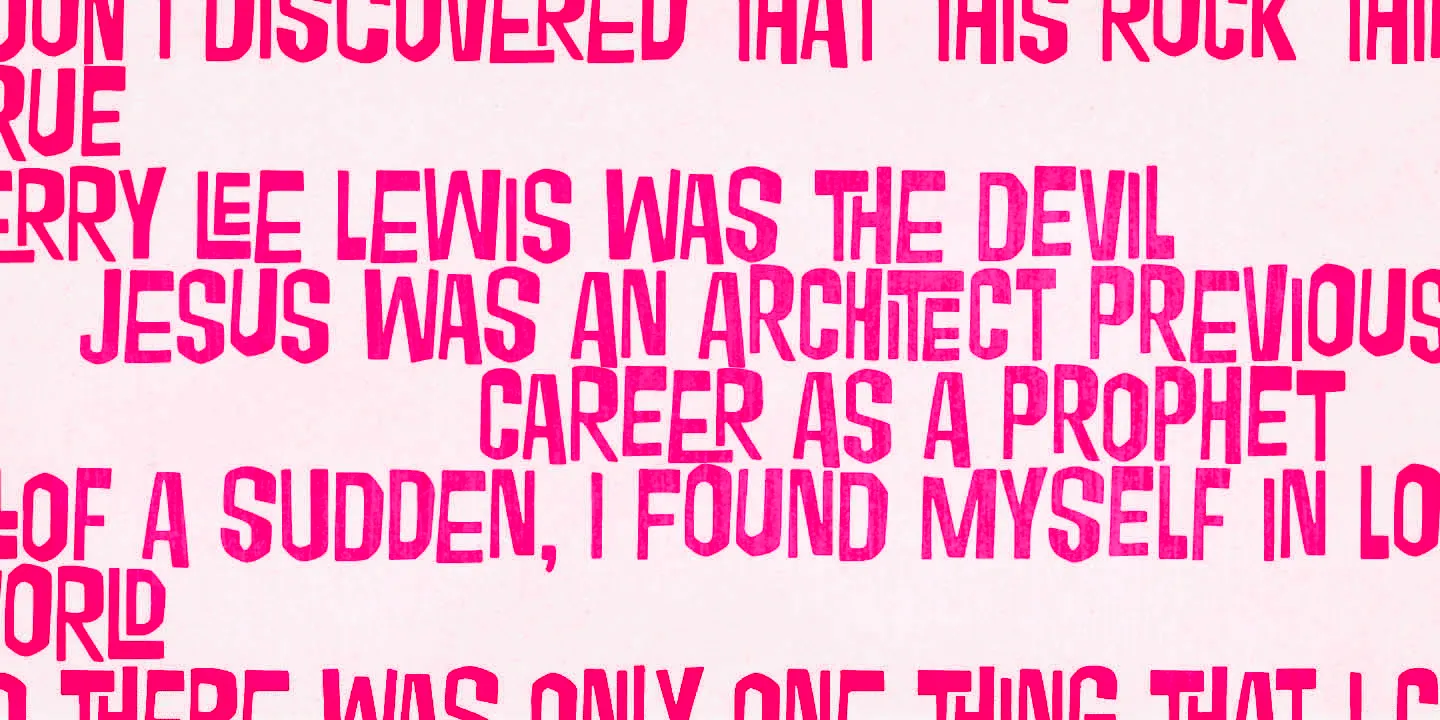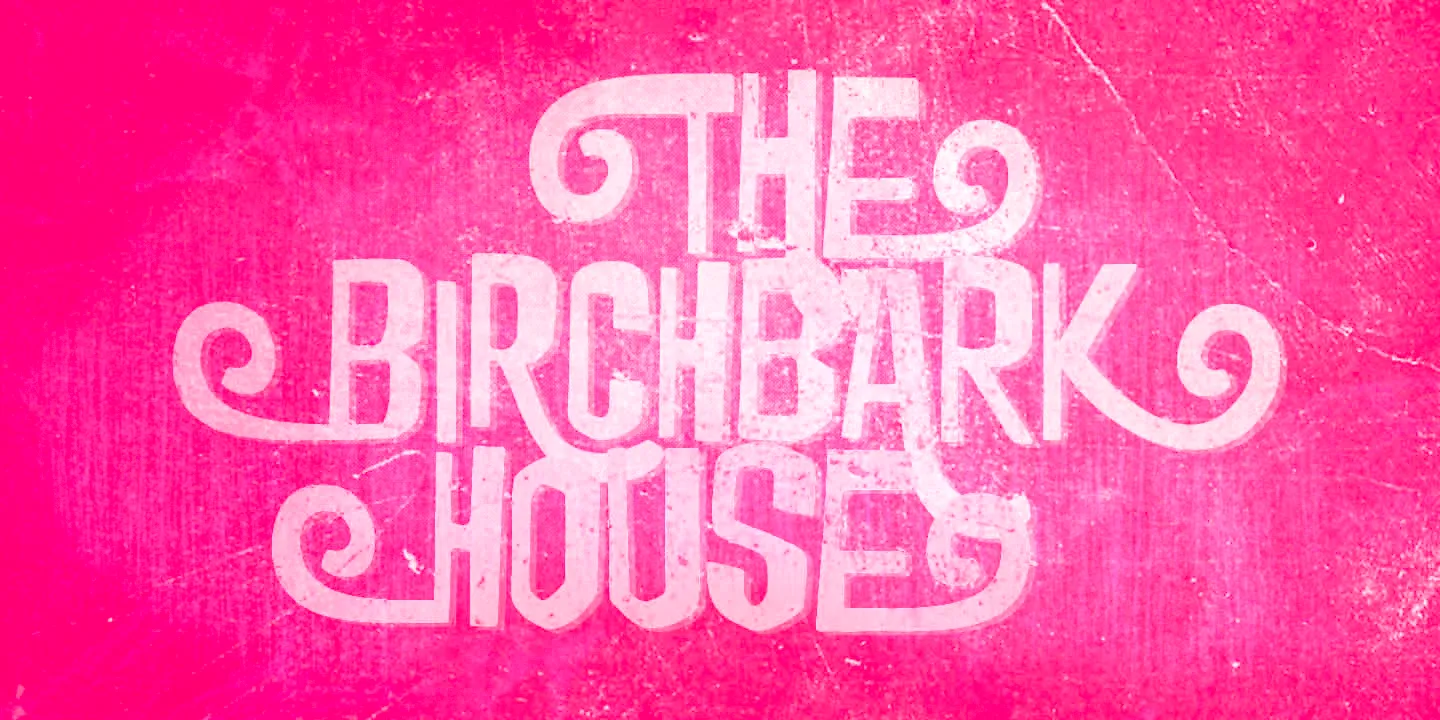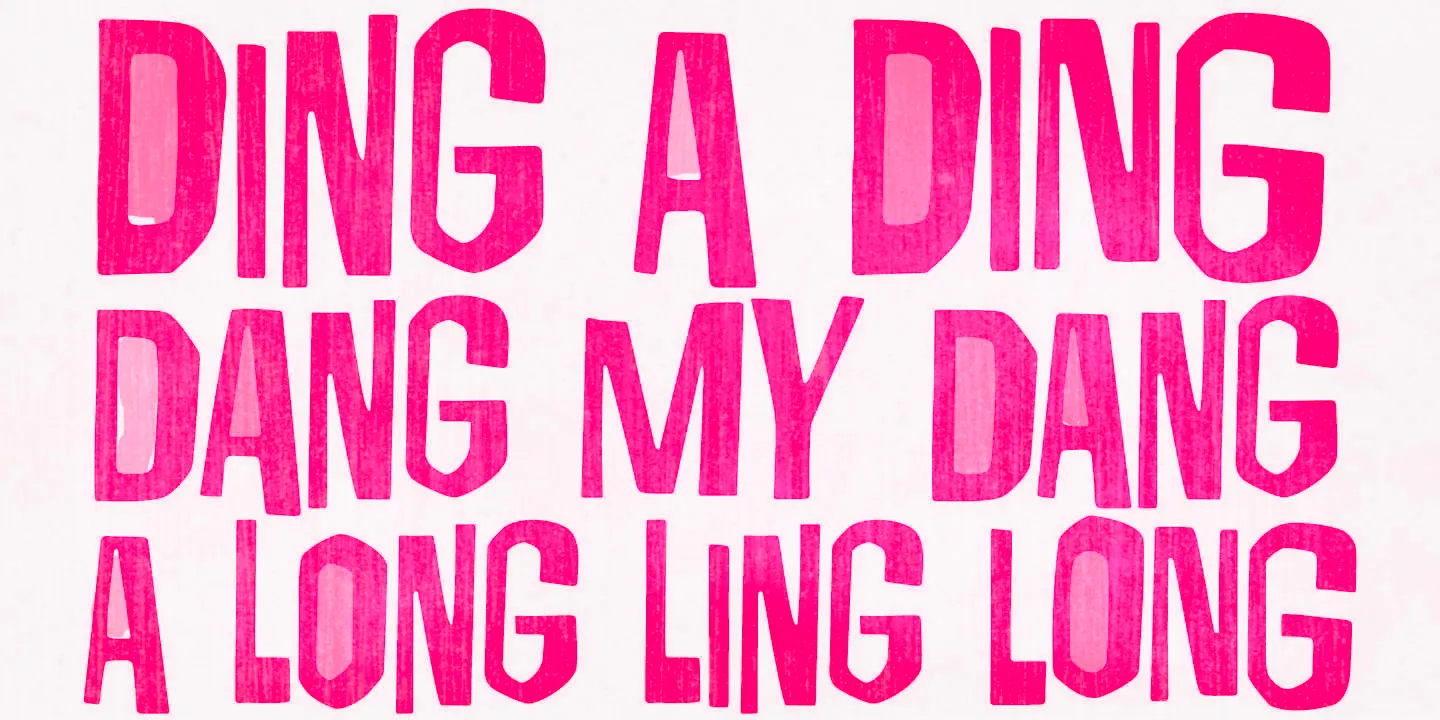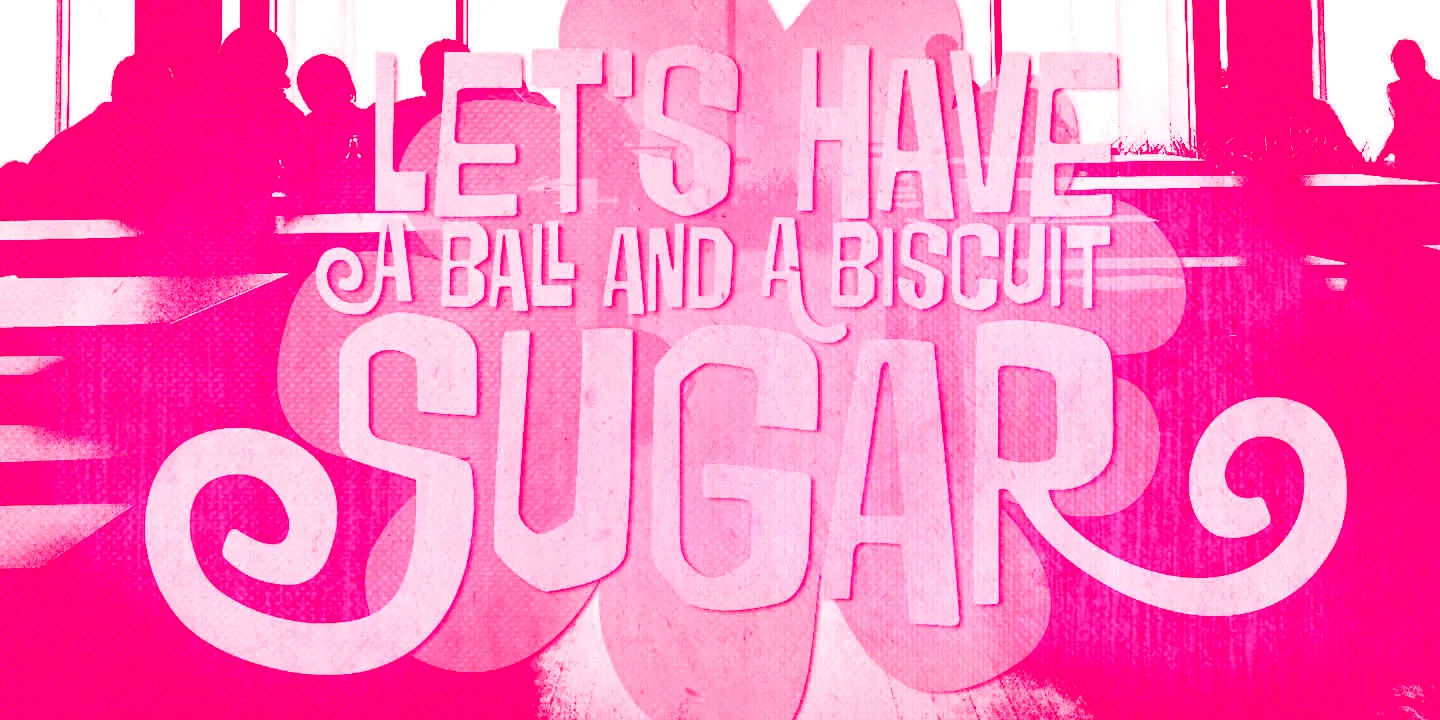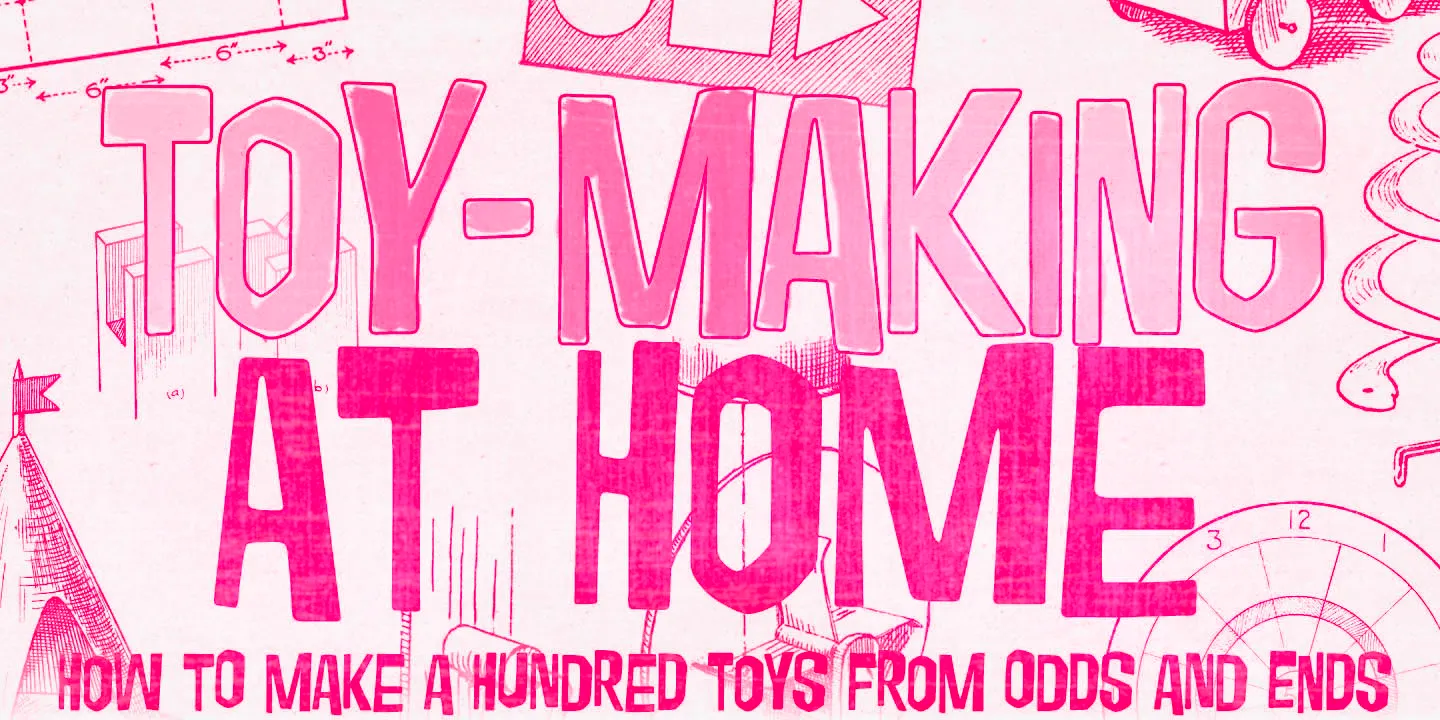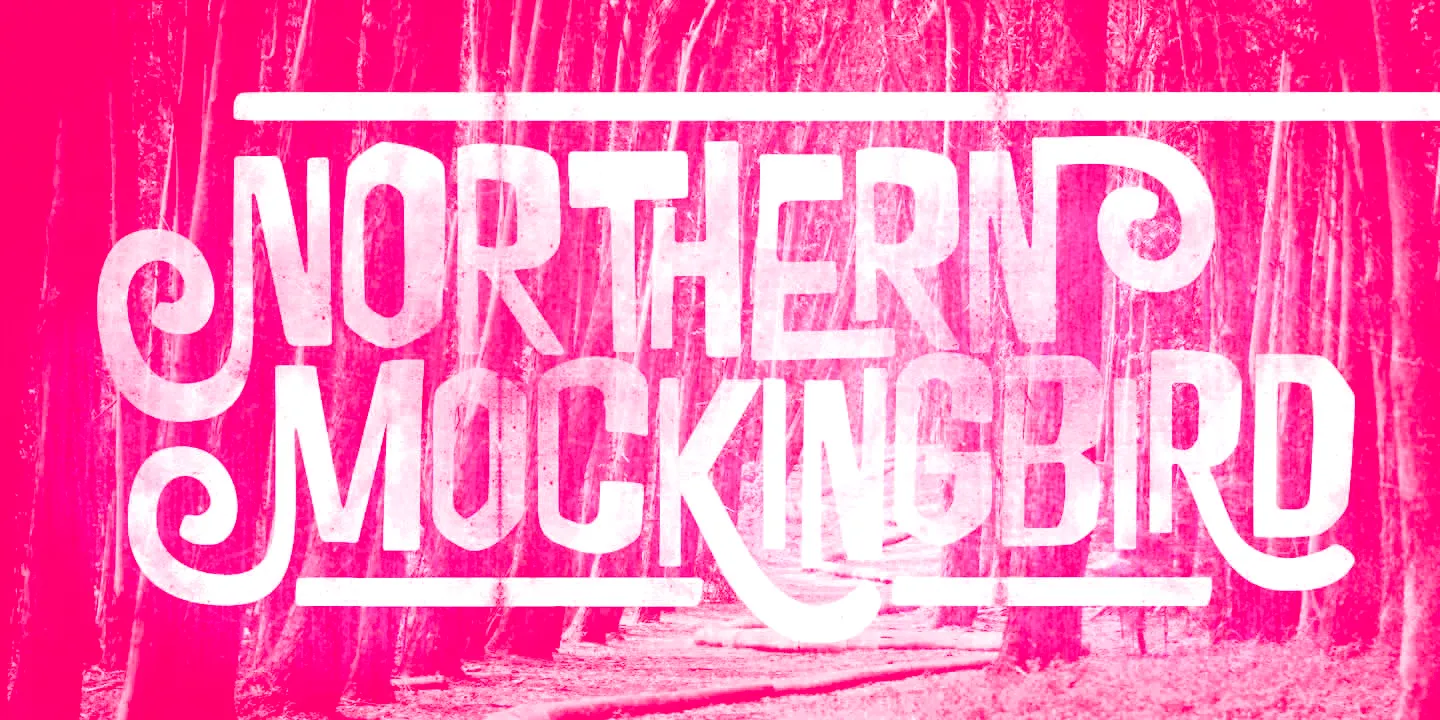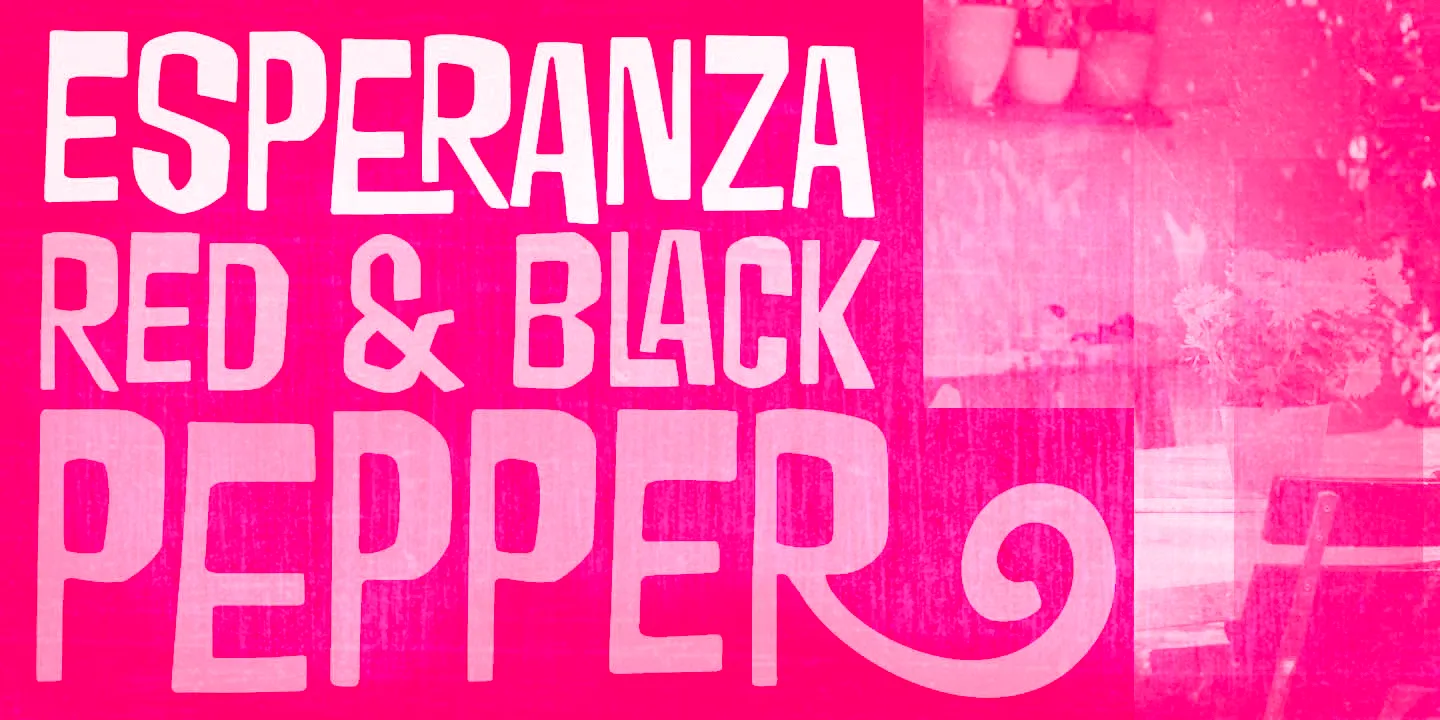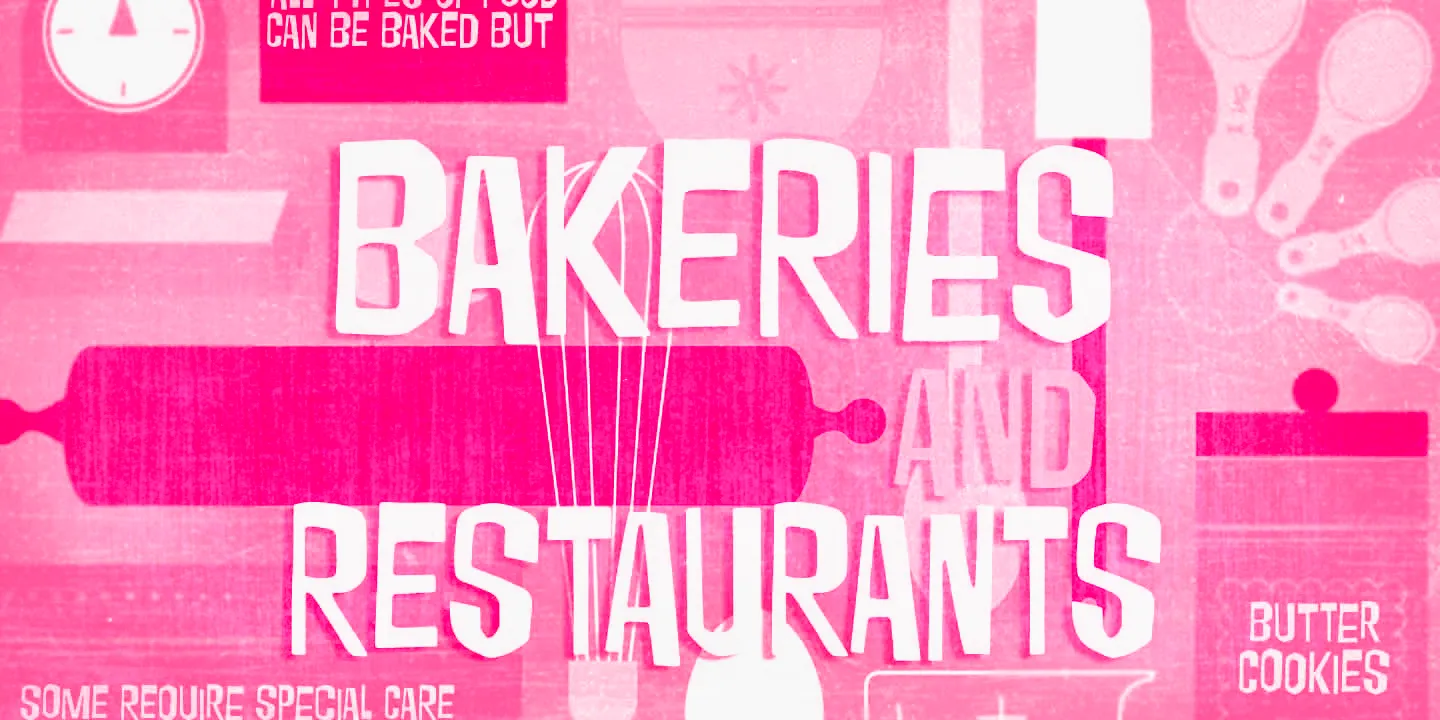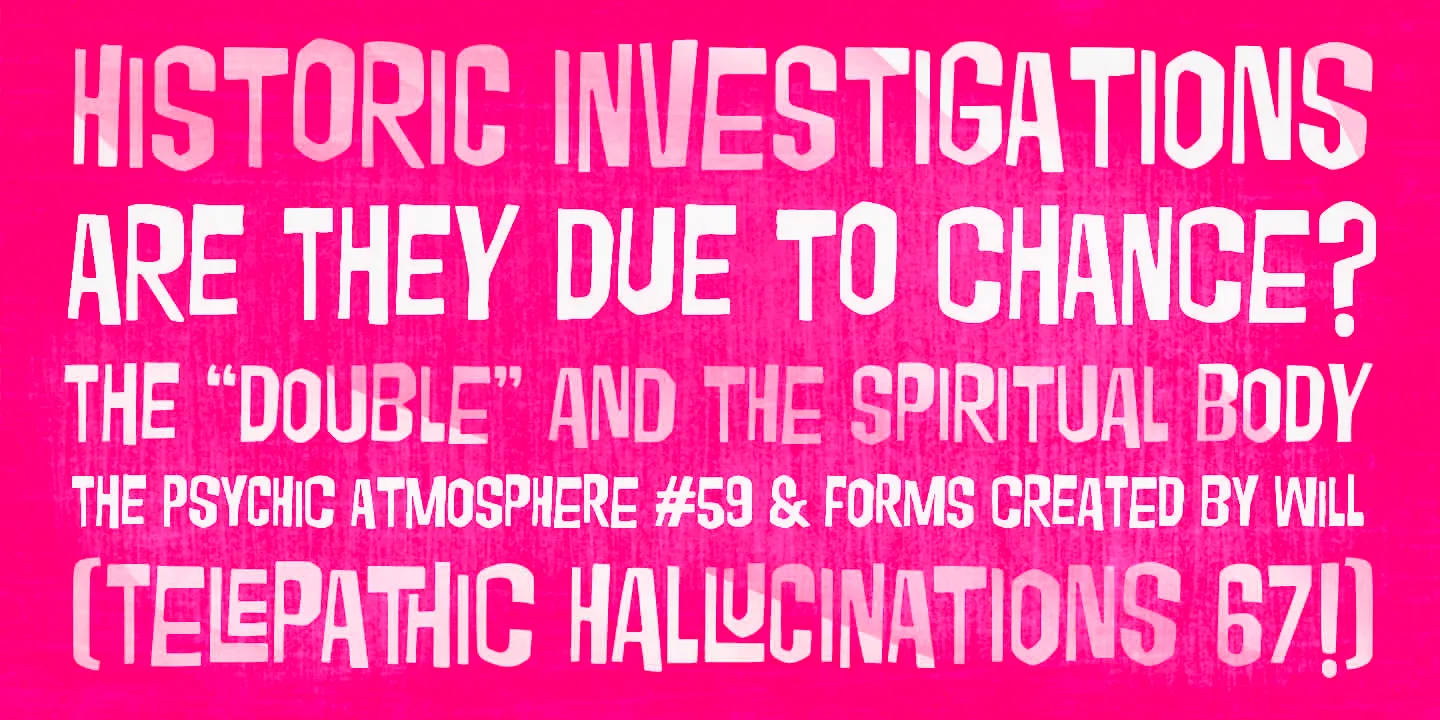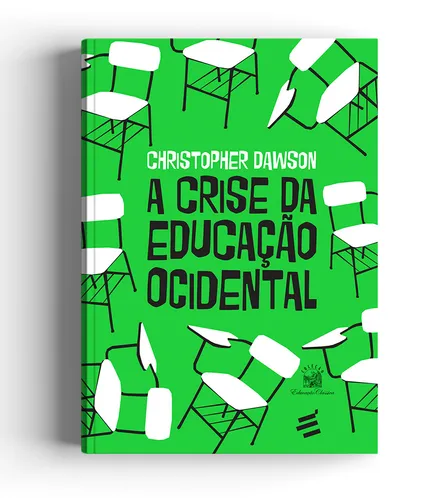
Tuesnight Font
Tuesnight
Tuesnight is a hand-lettered display typeface that feels like a party! Inspired by vintage movie posters from the sixties with a contemporary accent, this lively face has lots of alternates, a handful of interlocking pairs, and swashes, too! Tuesnight is boisterous and loud, making posters, packaging, books, and toys come alive!
• Common Ligatures
• Swashes